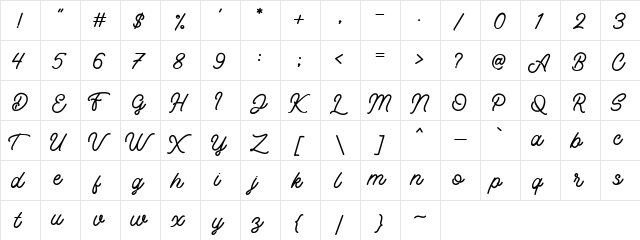
Retrology DEMO Regular
| Foundry | Letterhend Studio |
| Designer | Letterhend Studio |
Design Context for Retrology DEMO Typeface
Retrology DEMO has the warm character of retro typography — evoking diners, record sleeves, and the golden age of print advertising.